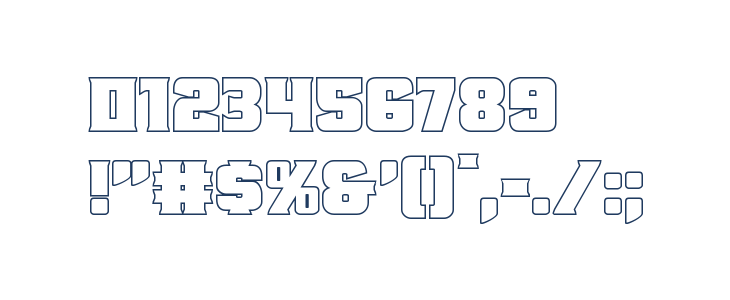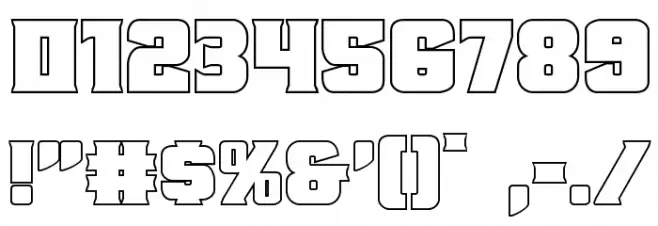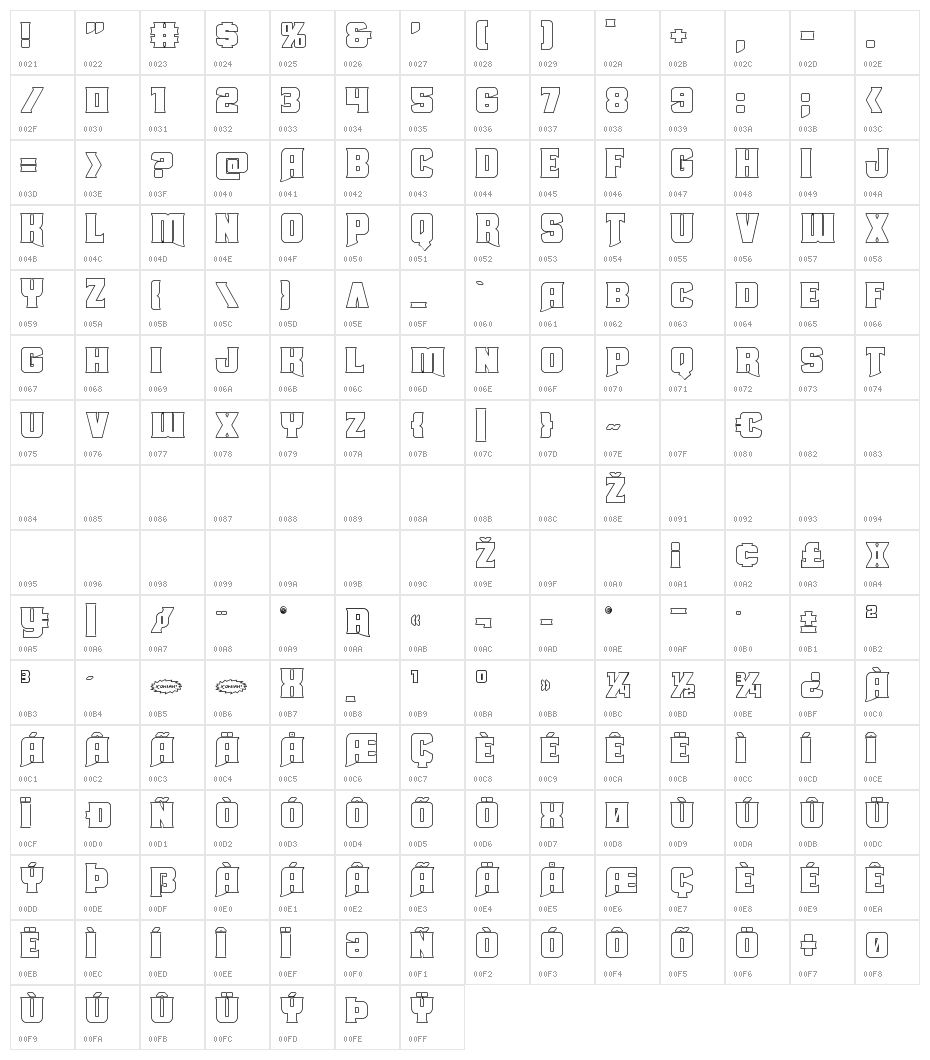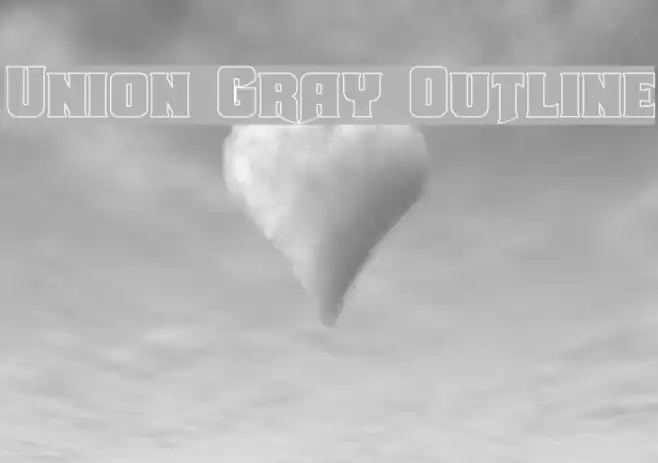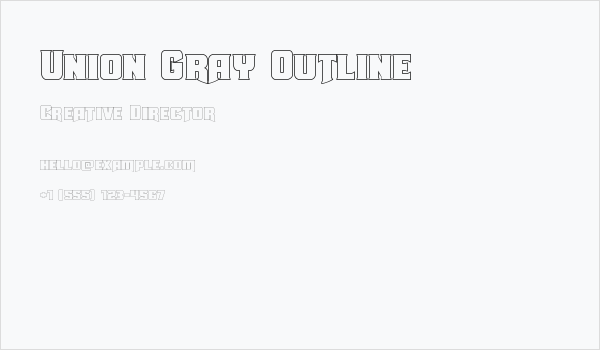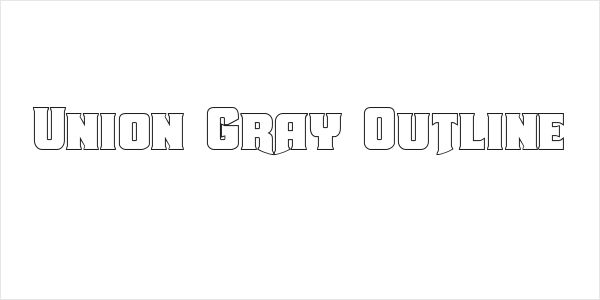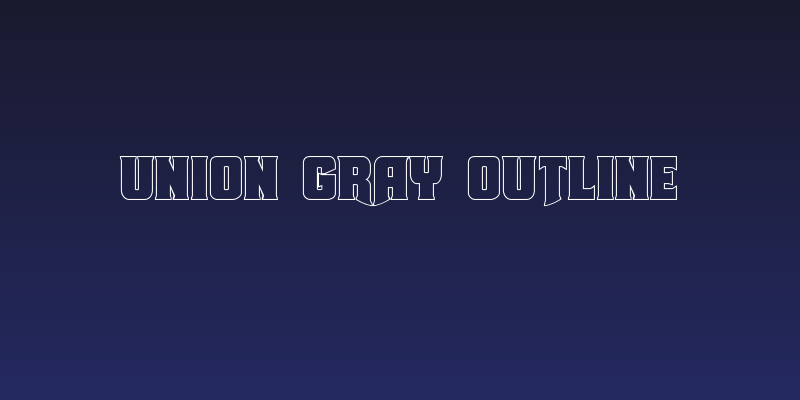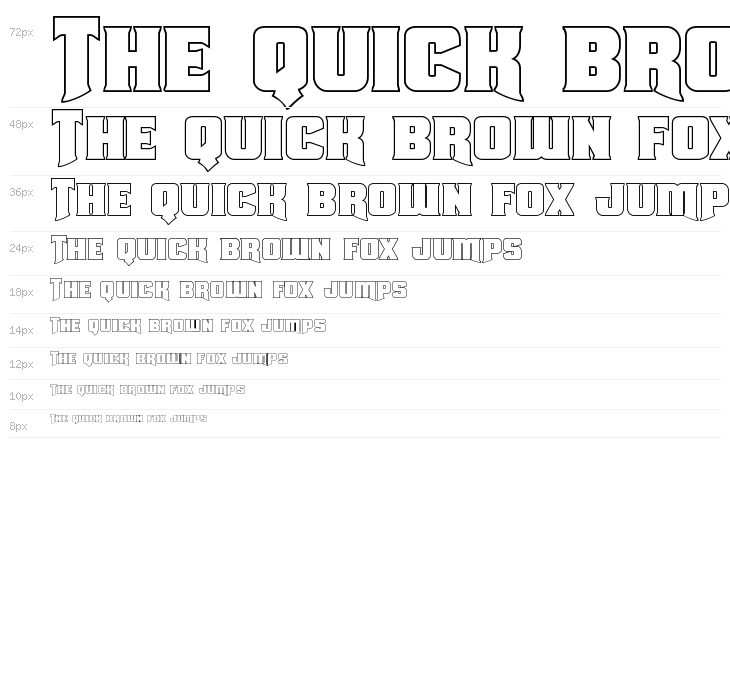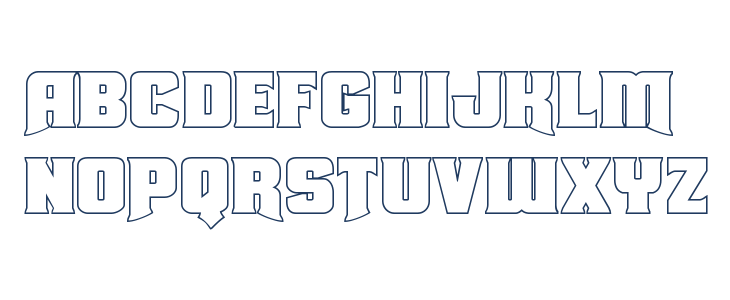
Union Gray Outline Font
Union Gray Outline Description
This font features a bold, outlined style with a strong geometric structure. The characters are uppercase and have a distinct, angular design that gives them a modern and edgy appearance. The outlines are consistent in thickness, providing a uniform look across all characters. The font's design is reminiscent of industrial or futuristic themes, making it suitable for projects that require a strong visual impact. The spacing between characters is normal, allowing for clear readability while maintaining its bold presence. This font is ideal for creating eye-catching headlines, posters, or branding materials where a statement needs to be made.
| Proposed Projects | Ideal for posters, branding, headlines, and any project requiring a strong visual impact. |